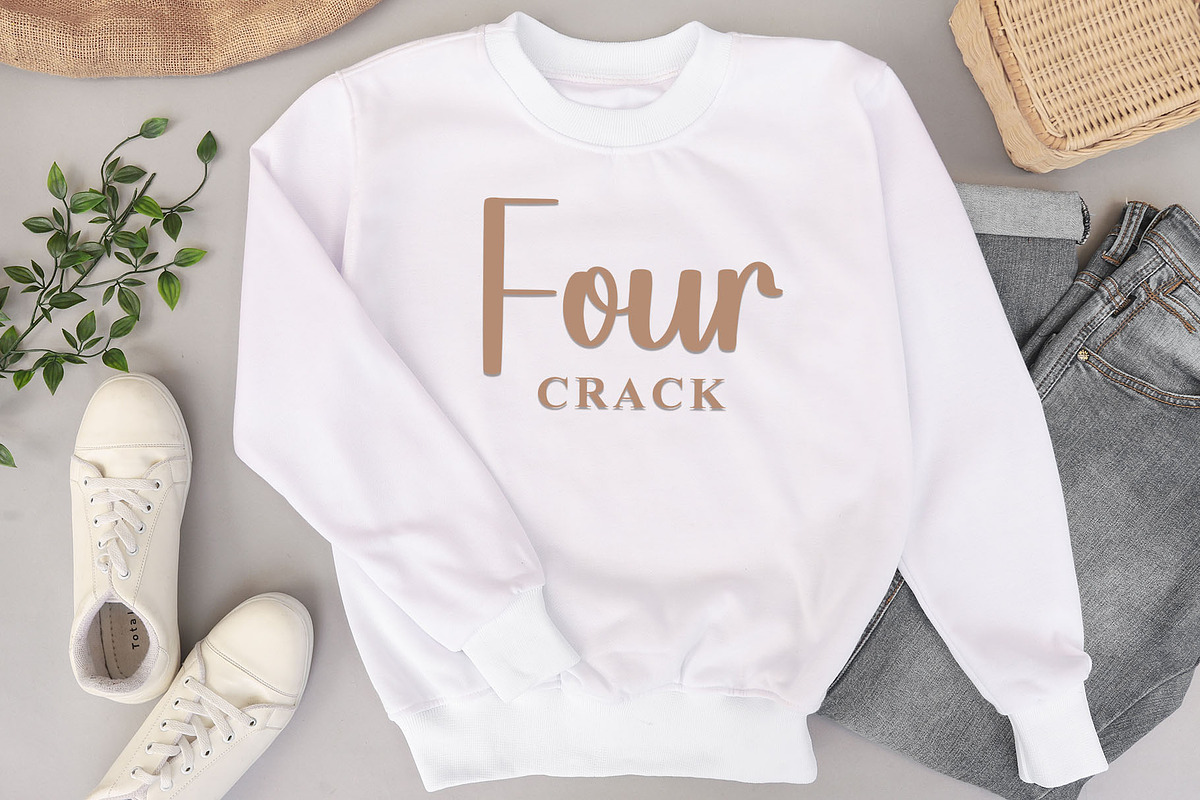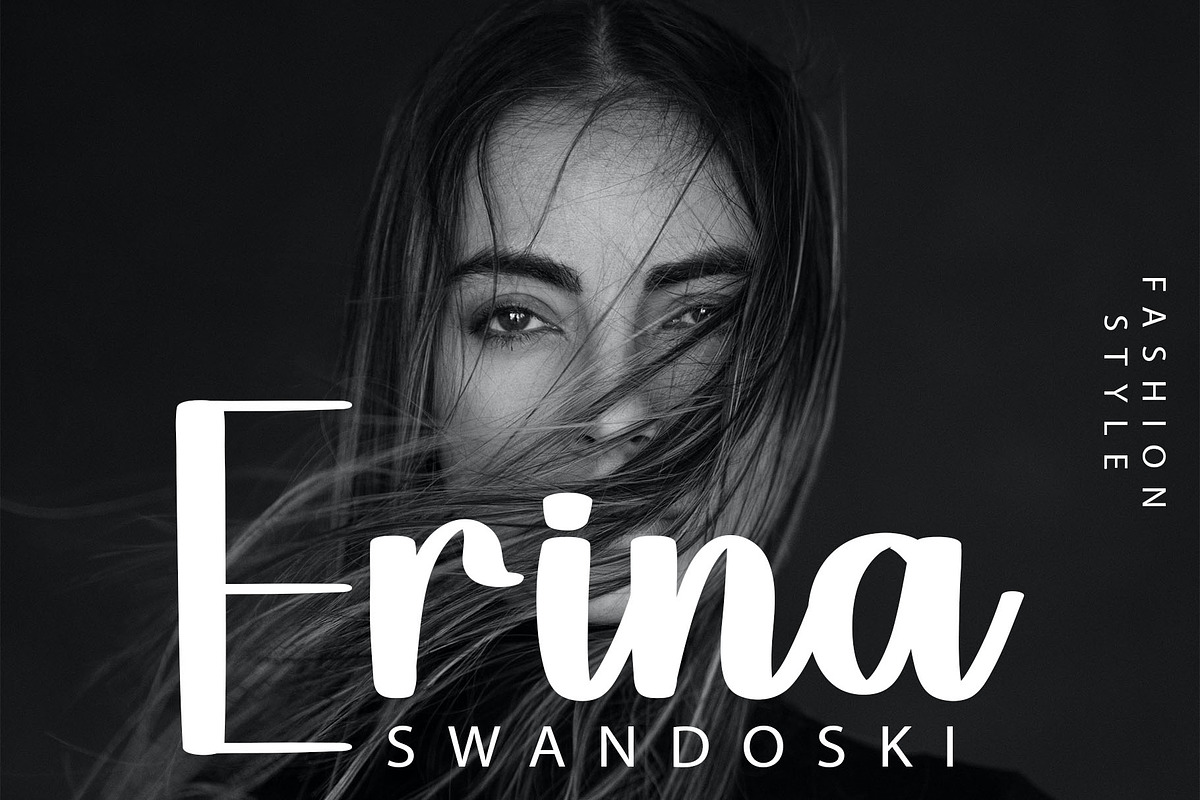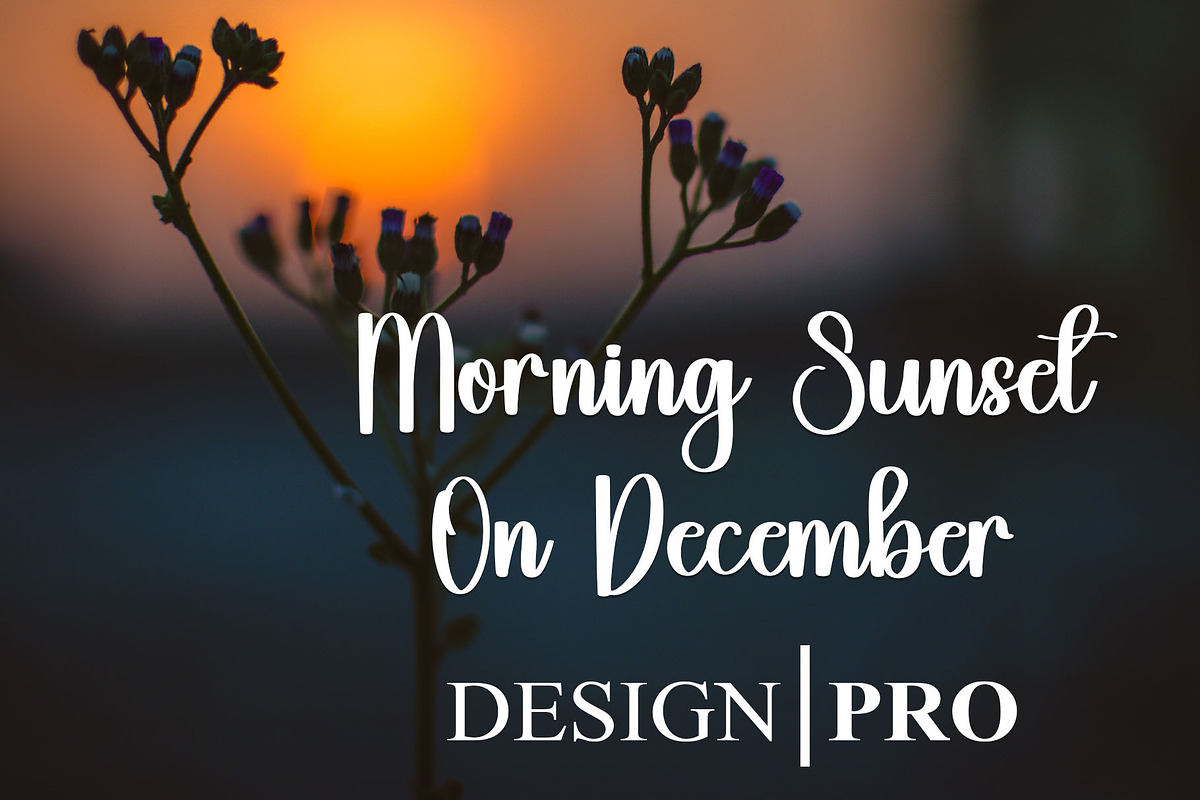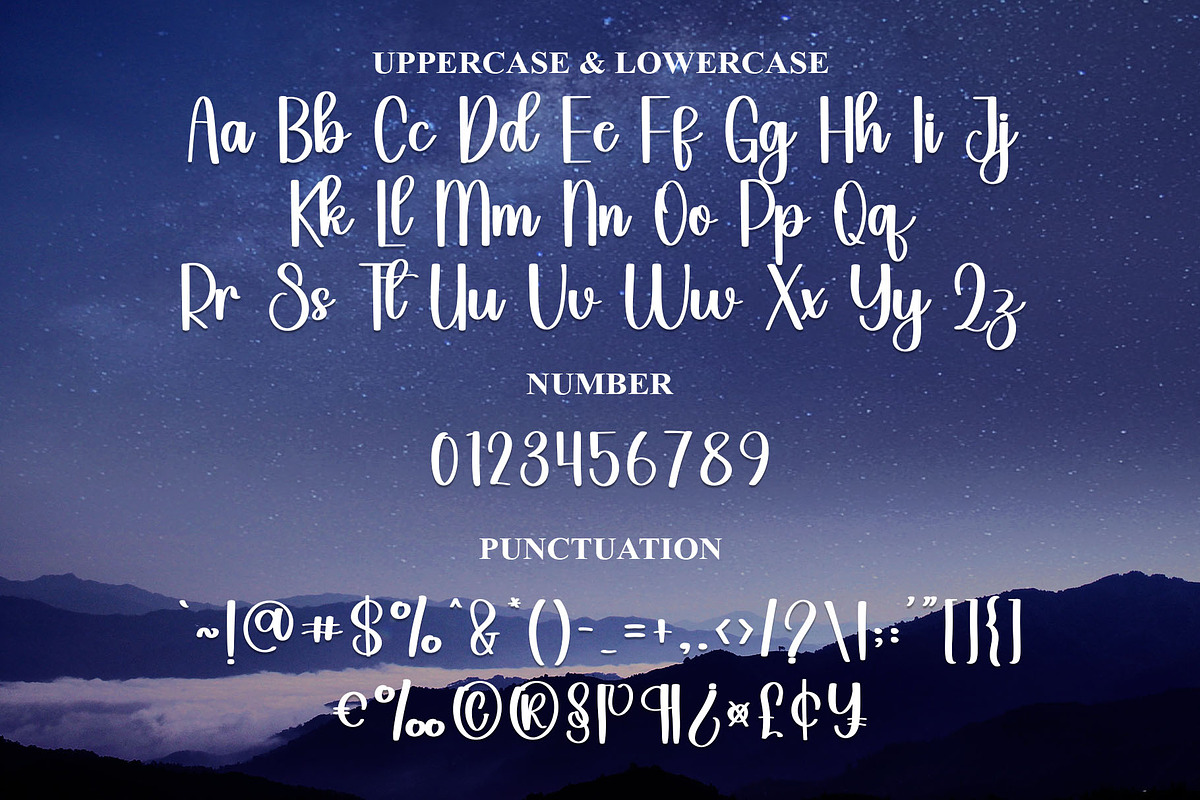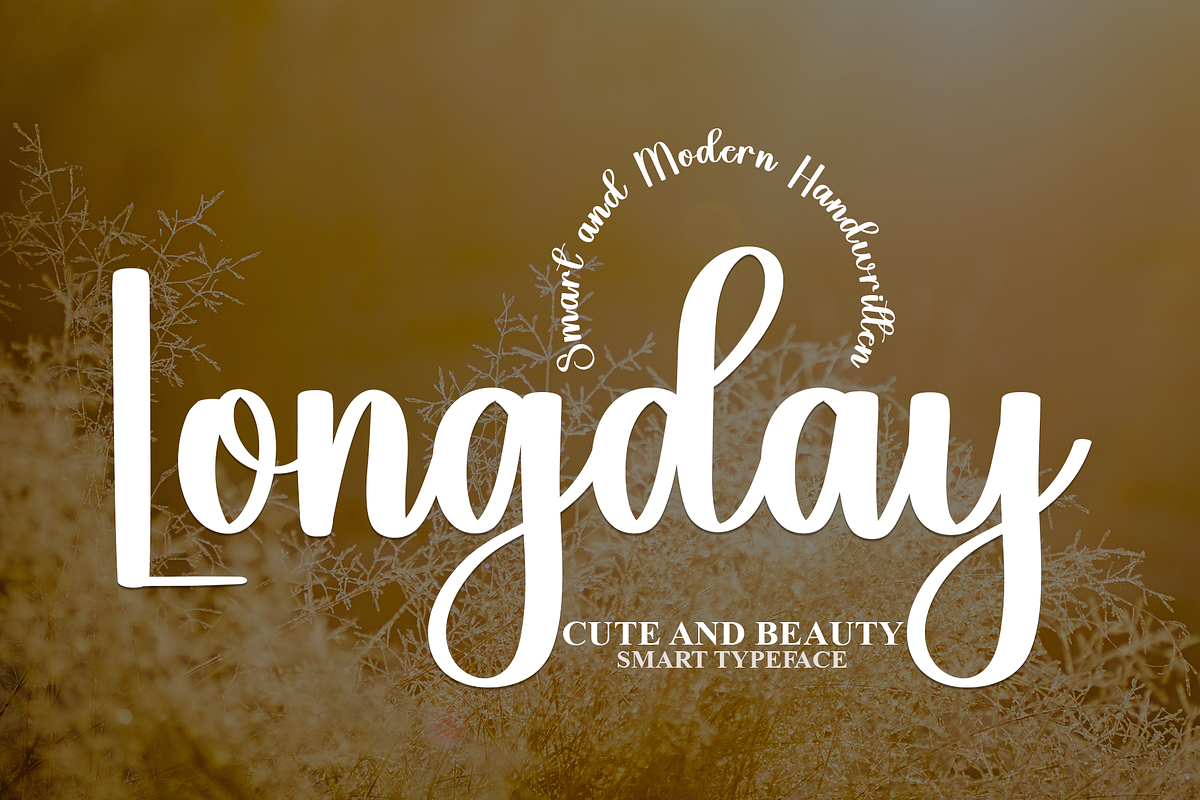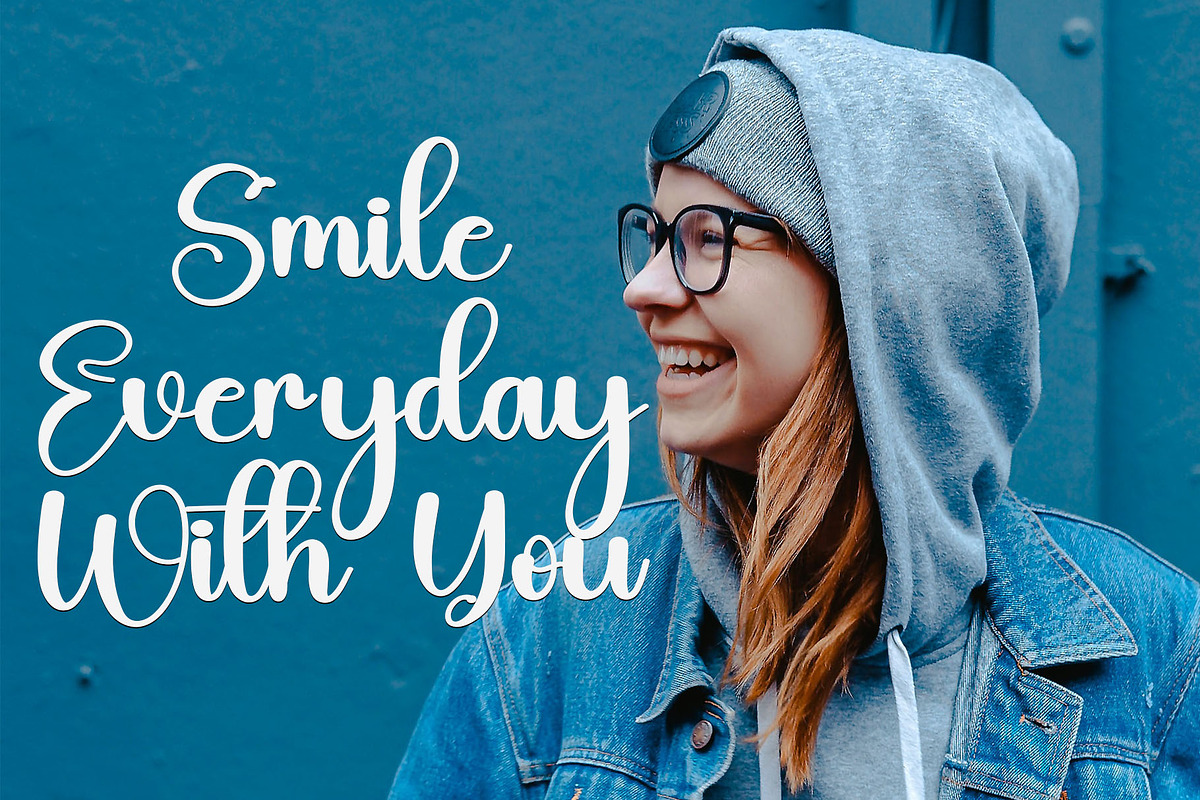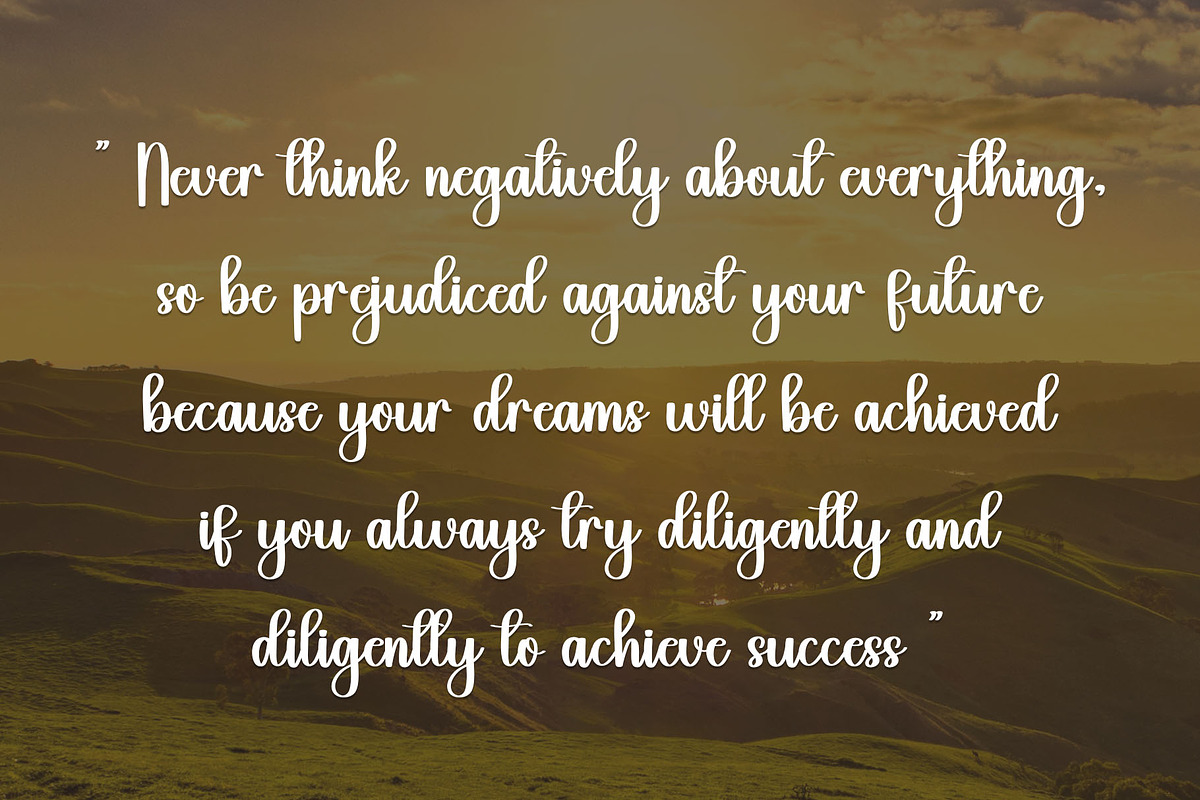
Longday
Longday is a beautiful and eye-catching font designed with a soft, unique touch. Its distinctive strokes give it a special character, making it meaningful and versatile for future use. With various characters, it’s perfect for design projects, crafts, and other creative works.